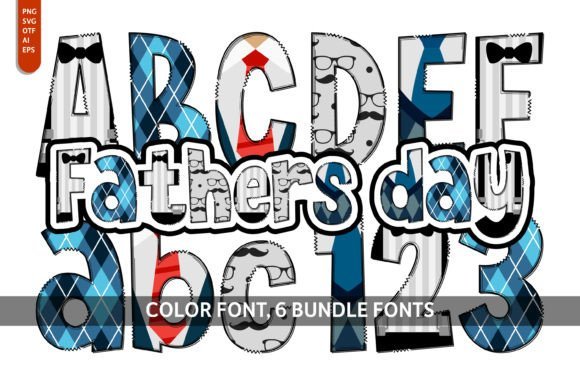
Adding a Personal Touch to Father’s Day Designs
As a designer, there’s no greater joy than seeing a project come to life in front of you. For many, it’s the moment when all the pieces fall into place, and the final result exceeds your wildest expectations. But what about when you’re tasked with creating a design that’s sure to tug at the heartstrings of your audience? That’s where the Father’s Day Bundle Font comes in – a collection of playful, artistic fonts designed to bring a smile to everyone’s face.
This versatile font bundle is perfect for designers looking to add a personal touch to their Father’s Day designs. Whether you’re creating a children’s book, poster, invitation, or greeting card, the Father’s Day Bundle Font is sure to bring a sense of whimsy and charm to your project. With its compatibility with popular design software, including PhotoShop, Illustrator, and Inkscape, you can rest assured that your design will look its best.
Father’s Day Bundle Font Key Features
- Font Family: A unique combination of 6 fonts (Dad, Pops, Papa, Father, Daddy, and Pop) designed to celebrate fatherhood.
- Character Count: 900+ glyphs, including Latin, Cyrillic, and Greek alphabets, ensuring broad language support.
- Unique Characteristics: Each font has its own distinct personality, with Dad being bold and playful, while Papa is elegant and sophisticated.
Review of “Father’s Day Bundle Font”
Overall, I’d say the “Father’s Day Bundle Font” is a decent addition to any designer’s toolkit. It’s a great way to add some festive flair to your projects, especially around Father’s Day. Here’s what I like about it: ✨
- It’s a versatile font bundle, including multiple styles and weights to help you create a cohesive look.
- The font is well-suited for projects related to family, fatherhood, and nostalgia.
- The bundle includes a decent number of glyphs and characters, making it easy to find the right symbol or icon to match your design.
- The font may not be as sophisticated or modern as some other options on the market.
- The bundle could benefit from more international language support.
- The font may not be suitable for high-end or professional designs, as it has a more casual feel.
Overall, I’d recommend the “Father’s Day Bundle Font” to designers who need a fun and festive font for a specific project. While it may not be the most advanced or versatile font, it’s a great way to add some personality to your designs.
For the best results, use the Father’s Day Bundle Font in conjunction with other design elements that complement its playful and festive vibe. Consider pairing it with bold colors and fun graphics to create a visually appealing design.
The Father’s Day Bundle Font is perfect for:
- Creating Father’s Day cards and invitations.
- Designing social media graphics and ads for Father’s Day promotions.
- Adding a personal touch to Father’s Day gifts and decorations.
Alternatives to “Father’s Day Bundle Font” for Designers
Pacifico is a beautiful script font perfect for creating a warm and welcoming atmosphere. It’s ideal for use in greeting cards, invitations, and other paper crafts. Compared to Father’s Day Bundle Font, Pacifico has a more elegant and refined feel, making it suitable for a wider range of designs.
Great Vibes is a modern script font that’s perfect for creating a fun and playful atmosphere. It’s ideal for use in social media graphics, advertisements, and other digital designs. Compared to Father’s Day Bundle Font, Great Vibes has a more casual and relaxed feel, making it suitable for younger audiences.
Playfair Display is a luxurious serif font perfect for creating a sophisticated and elegant atmosphere. It’s ideal for use in high-end branding, advertising, and other professional designs. Compared to Father’s Day Bundle Font, Playfair Display has a more formal and refined feel, making it suitable for corporate and business designs.